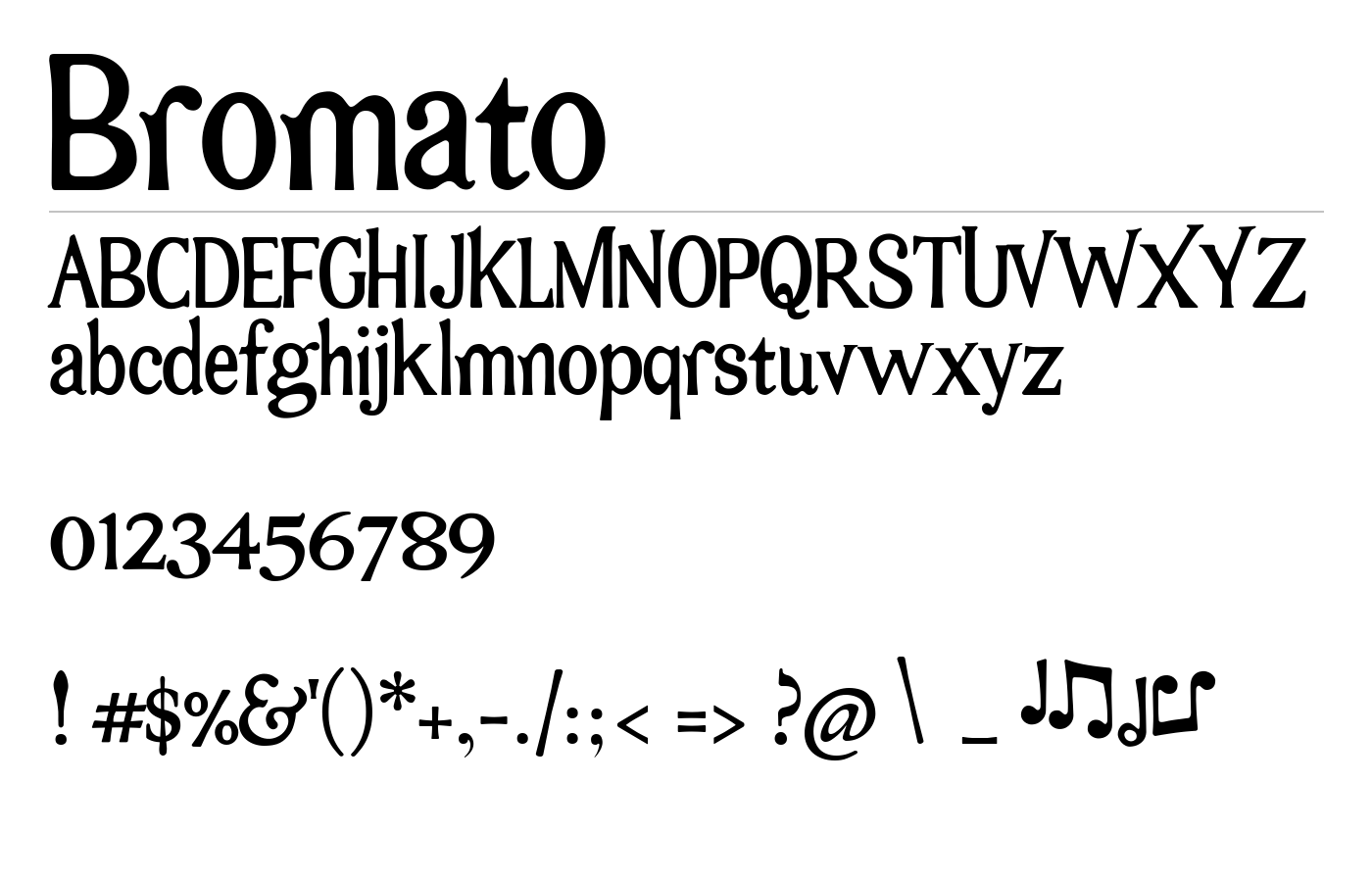
Bromato is a playful serif font with a slightly irregular, hand-crafted feel, featuring moderate contrast between strokes and quirky letterforms that add personality without sacrificing readability. Its narrow proportions and unique details give it a charming, approachable vibe, making it ideal for creative branding, children’s books, and informal editorial projects that benefit from a friendly yet distinctive look. This font works well in headlines and display settings where character and warmth are desired.
Bromato Font
About Bromato Font
| Designer | Manuel Mercuri |